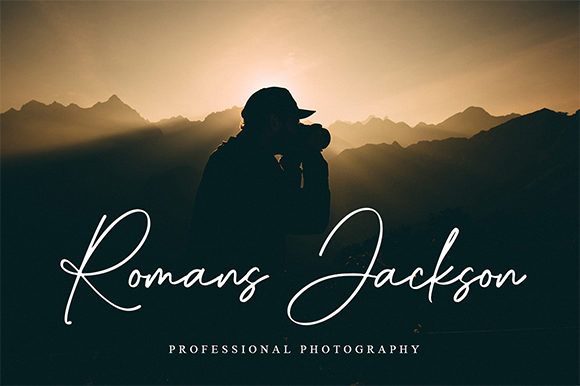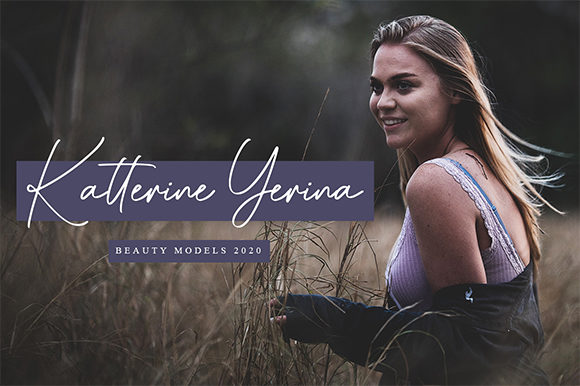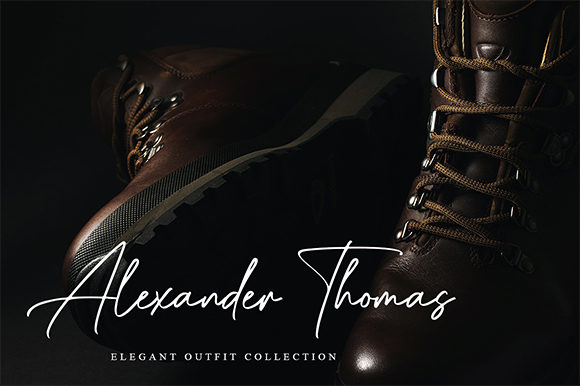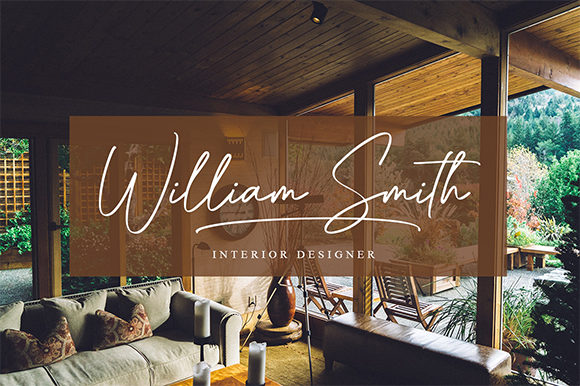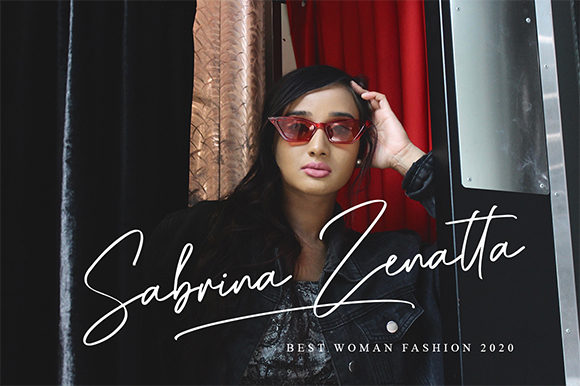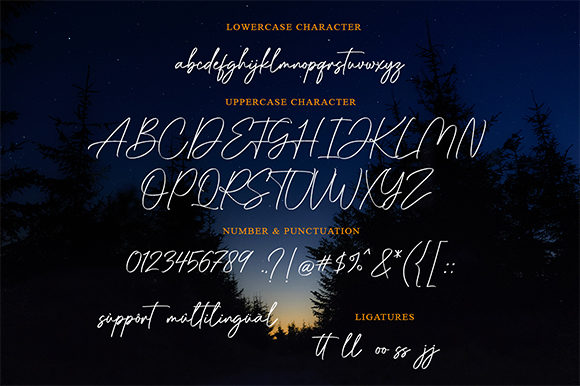
Introduction to Raflessia Font
Have you ever stared at a blank canvas, waiting for the perfect spark to ignite your creativity? For many designers, that moment comes when they stumble upon the perfect font. For me, it was the discovery of the Raflessia Font – a stunning signature font that exudes luxury and sophistication. With its unique blend of elegance and playfulness, this font has become an essential design resource for any creative project.
Whether you’re crafting a wedding invitation, designing a social media post, or creating a beautiful piece of stationery, the Raflessia Font is the perfect addition to bring your vision to life. Its high-quality design and transparent background make it a valuable asset for designers looking to elevate their work.
Key Features of Raflessia Font
- High-quality, unique font design perfect for creative projects requiring a distinctive touch
- Features a large character set, including Latin, Cyrillic, and Greek alphabets, making it suitable for multilingual projects
Honest Review: Raflessia Font
I recently had the opportunity to work with the Raflessia Font, and I must say it’s a great addition to any designer’s toolkit. This free download offers a high quality design resource that’s perfect for creative projects.
- ✨ The font’s transparent background allows for seamless integration with any background image or color.
- ✨ The Raflessia Font is highly customizable, making it a great choice for designers who want to add a personal touch to their projects.
- ✨ The font’s clean and modern design makes it perfect for a wide range of creative projects, from branding to editorial design.
- ⚠️ The font’s weight range is a bit limited, which can make it difficult to achieve the perfect balance of light and dark text.
- ⚠️ The font doesn’t support all languages, which can be a problem for designers who need to create content in multiple languages.
Overall, I’m impressed with the Raflessia Font. It’s a great free resource that’s perfect for designers who want to add a high quality touch to their creative projects. While it has some limitations, I believe it’s definitely worth considering for your next design project.
Tips for Getting the Most Out of Raflessia Font
For the best results, use the Raflessia Font on a transparent background to make the font stand out. You can also combine it with other design elements to create a unique and eye-catching design.
Common Use Cases for Raflessia Font
The Raflessia Font is ideal for use in various creative projects, such as logo designs, social media graphics, and marketing materials. Its high-quality and stylish features make it a great choice for designers and artists looking to add a touch of elegance to their work.
What is the quality of Raflessia Font like?
Raflessia Font is designed to be a high-quality font, with precise details and a clear, legible appearance. It’s perfect for a wide range of creative projects, from print to digital designs.